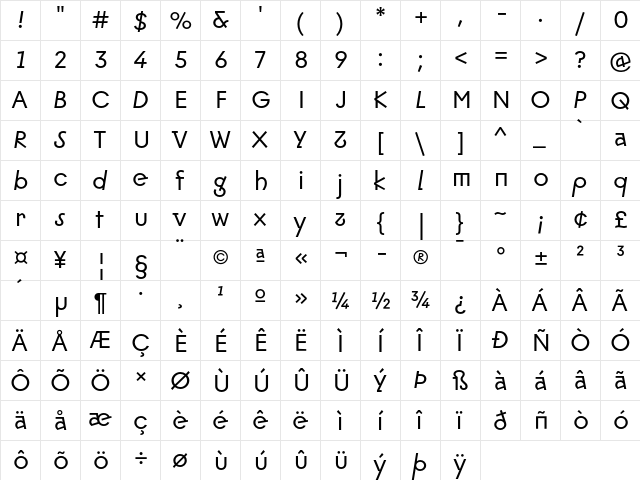
Pioneer 10 Regular
| Foundry | Igor Kosinsky |
| Designer | Igor Kosinsky |
Design Context for Pioneer 10 Typeface
Pioneer 10 takes a measured approach to typography — its balanced proportions and neutral character make it a reliable workhorse for both digital and print work.